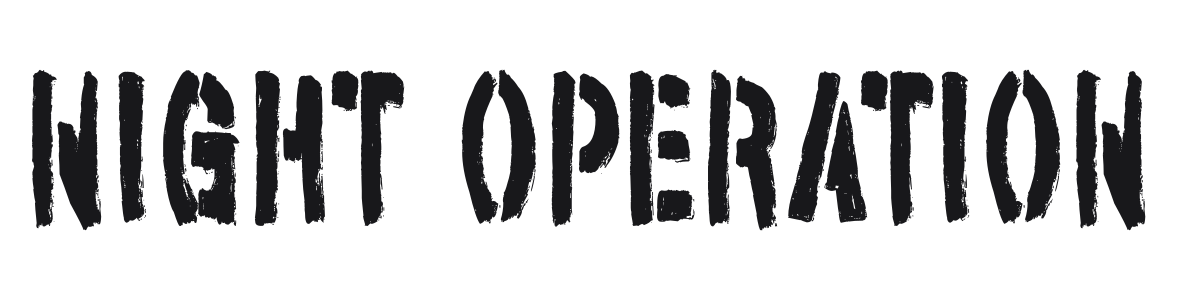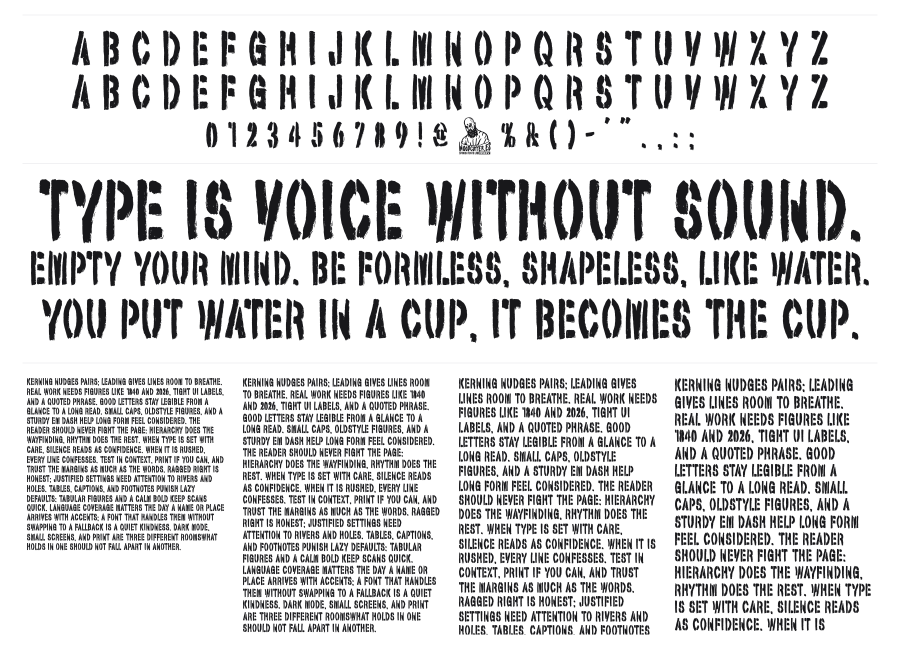
Night Operation
Night Operation is a condensed military stencil font with heavy ink erosion and raw, spray-painted character. The rough edges and stencil bridges feel genuinely physical, like something stamped on a crate or sprayed on a bunker wall. It brings immediate tension and grit to posters, game titles, and anything that needs to feel operational.